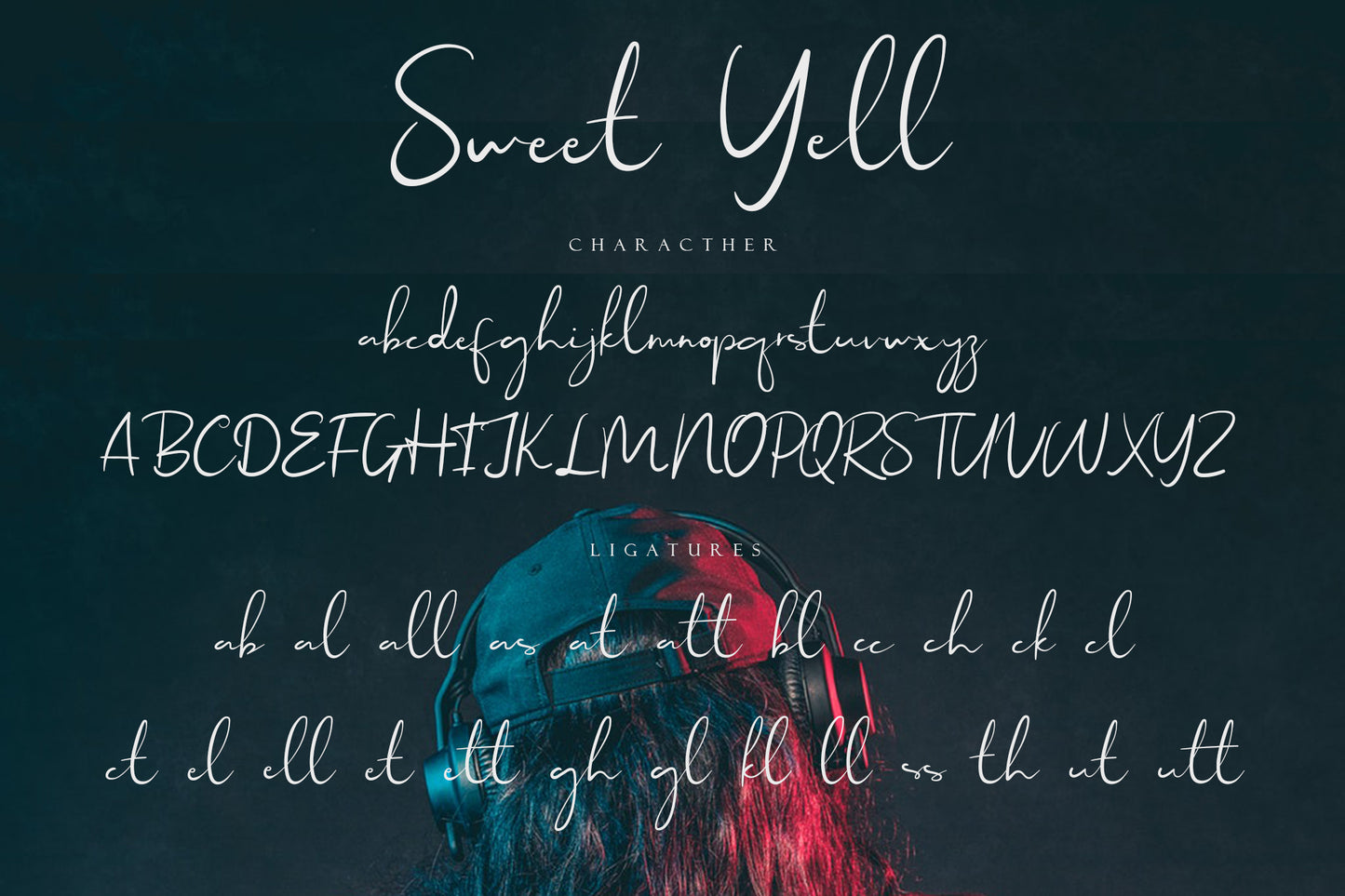
Free Sweet Yell A Fun Handwritting Font (FREE)
Free sweet yell – a fun handwritting font (free) for graphic designers that need to present their work in a professional way. Pixelify has created this amazing and beautiful font. This is absolutely cool font so you can easily make world-class designs.